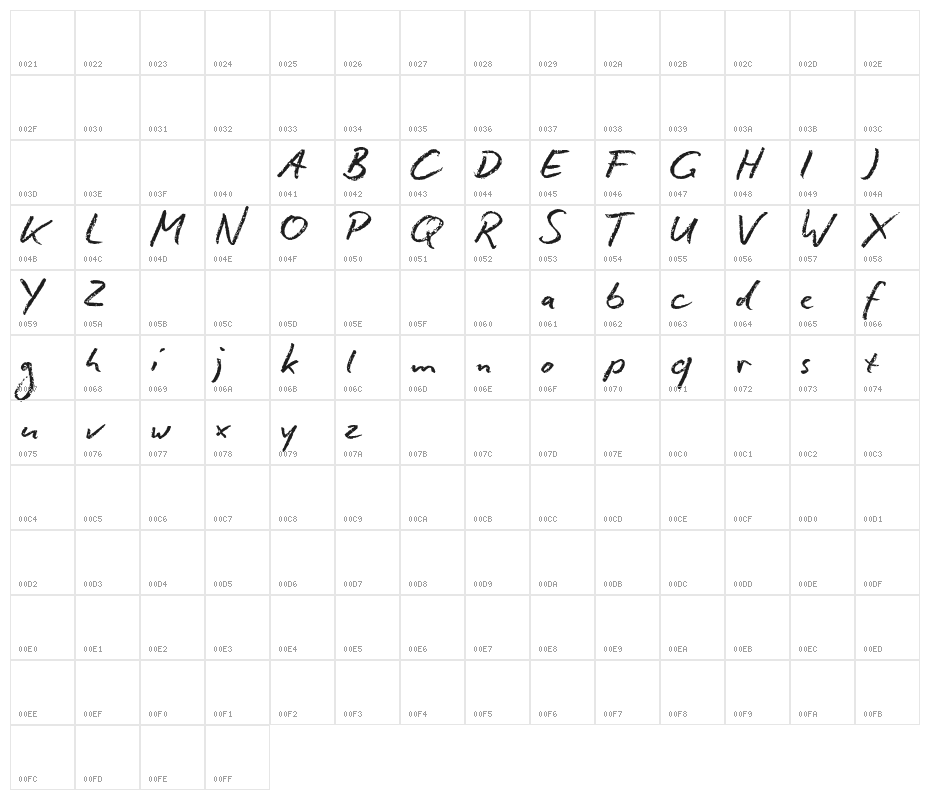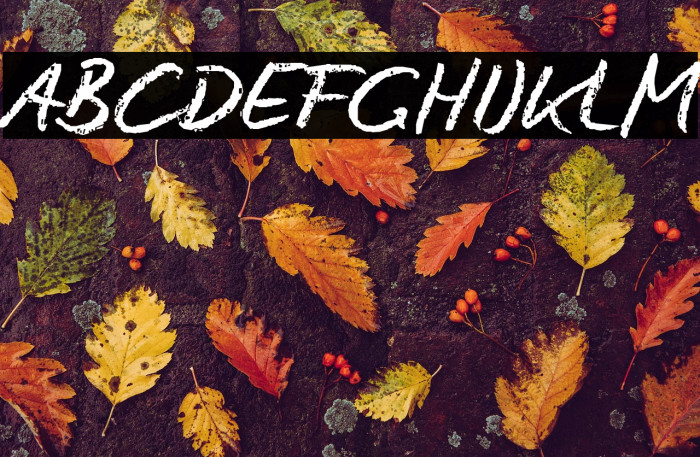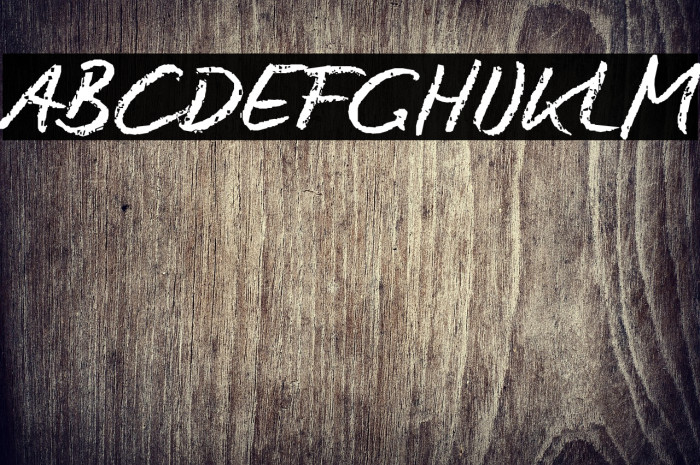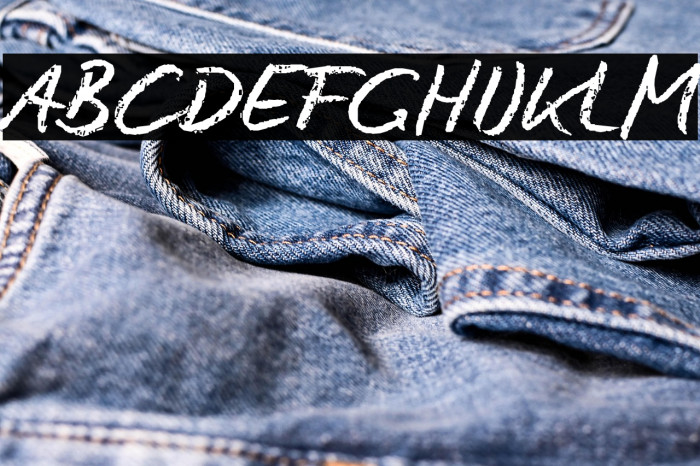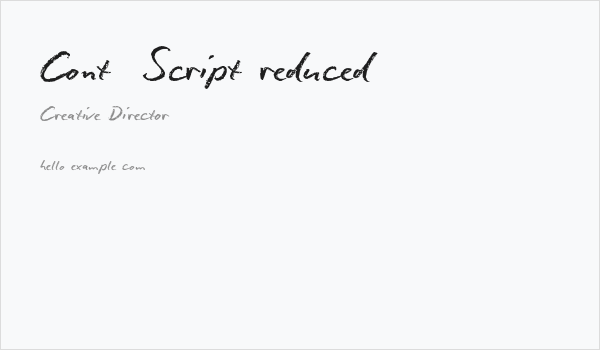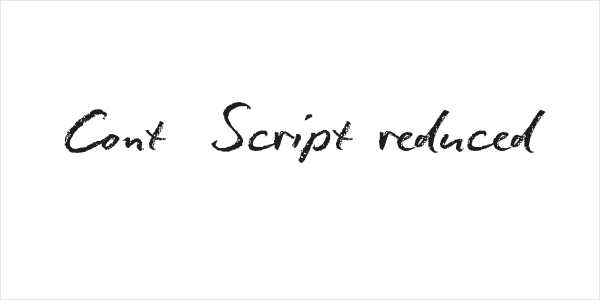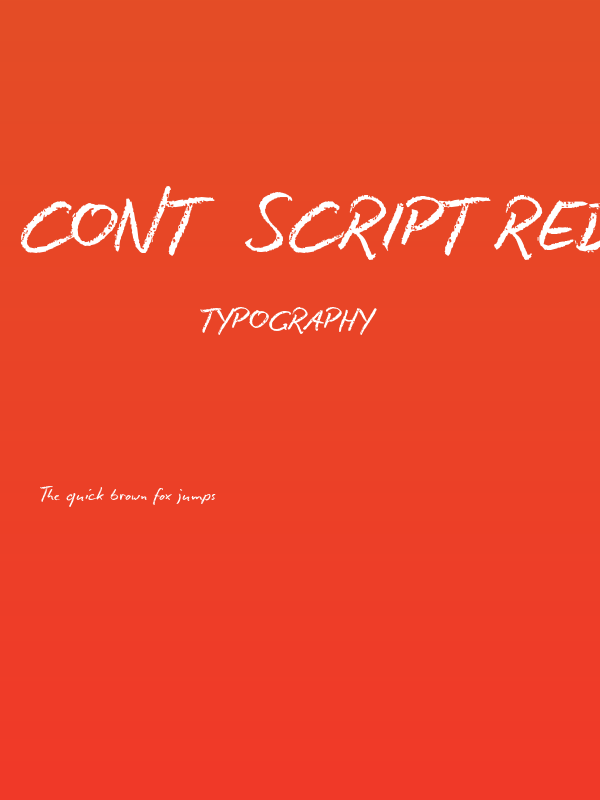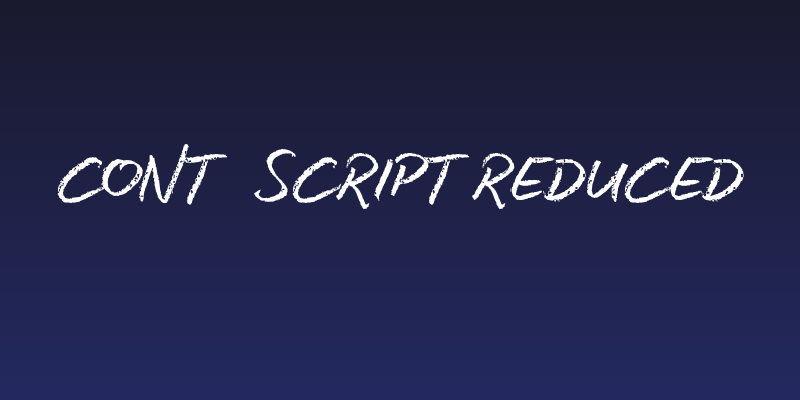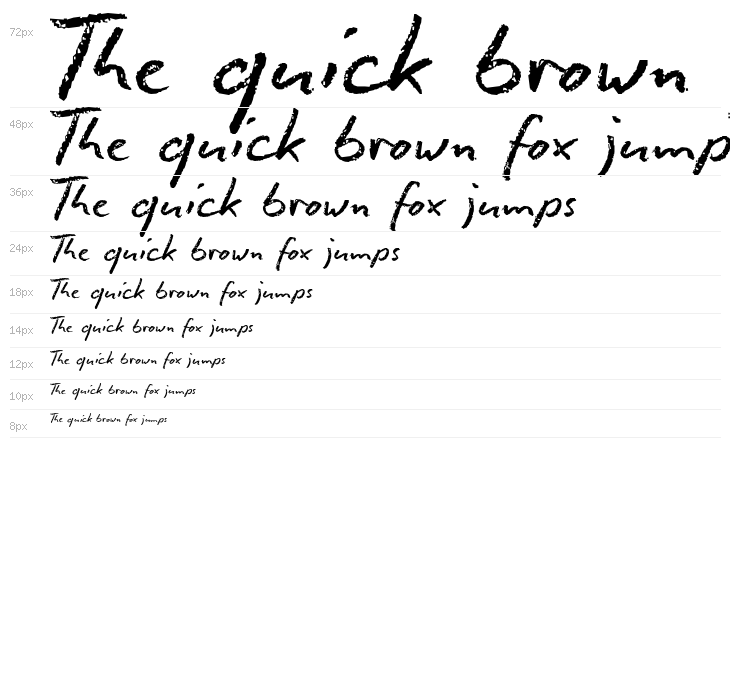
Conté Script reduced Font
Conté Script reduced Description
This font exhibits a dynamic and expressive style, characterized by its handwritten appearance. The letters are crafted with a rough, textured finish that gives them a natural, organic feel. The strokes vary in thickness, adding a sense of movement and energy to the text. The uppercase and lowercase letters maintain a consistent flow, with some characters featuring distinctive loops and curves. This font captures the essence of a personal touch, making it ideal for projects that require a human element. The overall design is both artistic and approachable, suitable for creative and informal applications.
| Use Case | Logos, Headlines, Artistic projects |
| Proposed Projects | Ideal for greeting cards, personal branding, artistic posters, and creative invitations. |